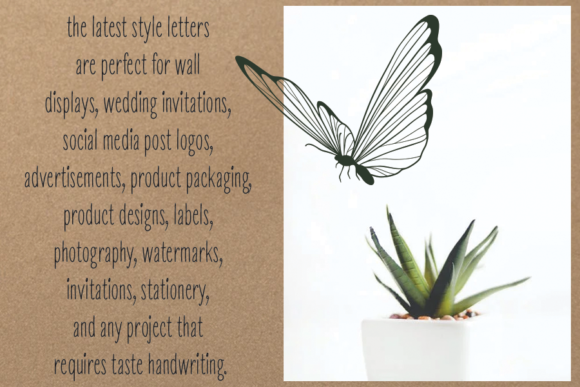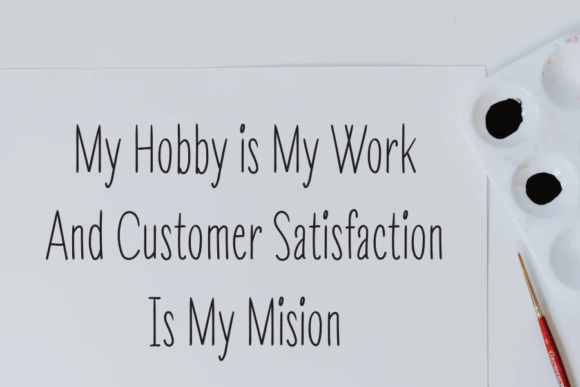
Minimallove Font
db-ku.com - Script & Handwritten -- Minimallove is a delicate and simple handwritten font. Its natural and unique style makes it incredibly fitting to a large pool of designs. The only limit is your imagination!